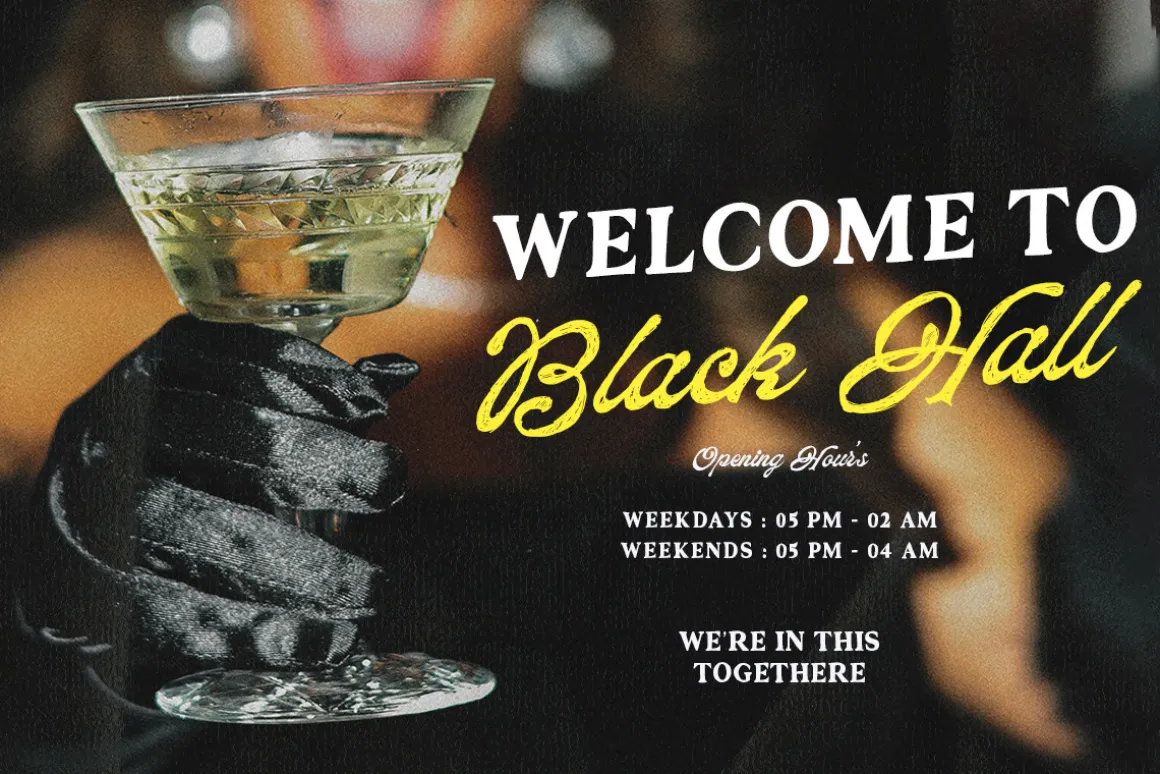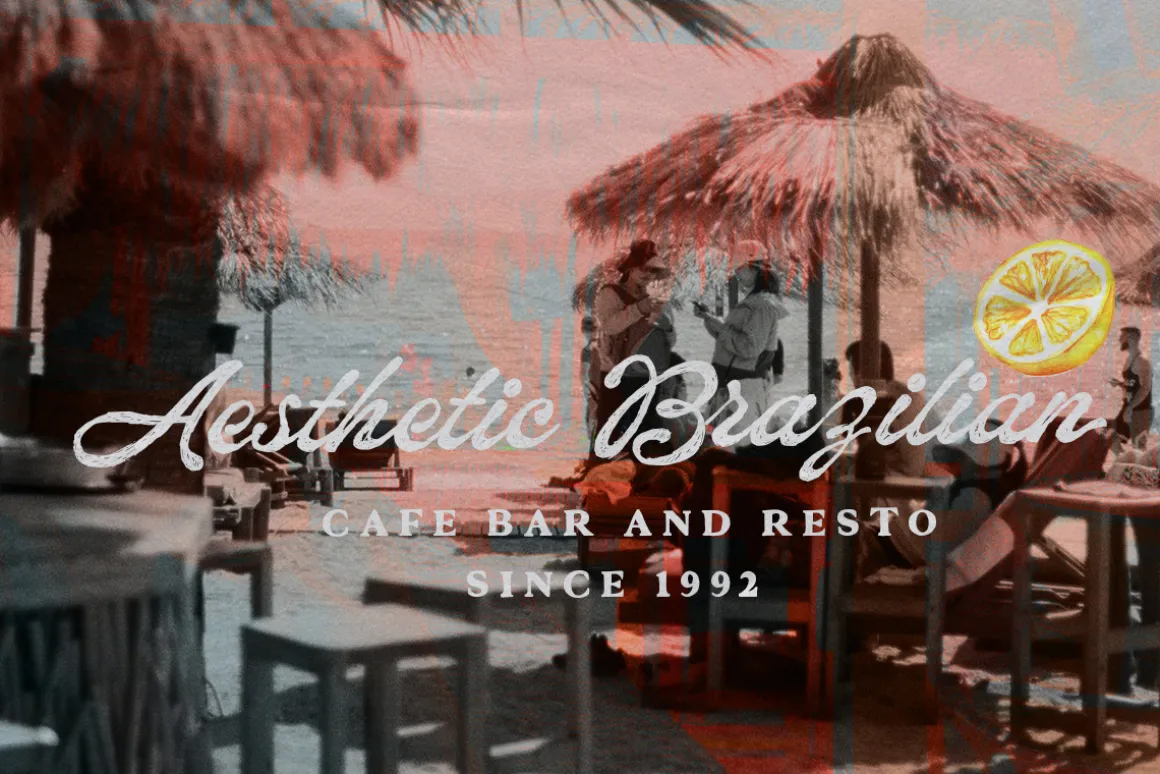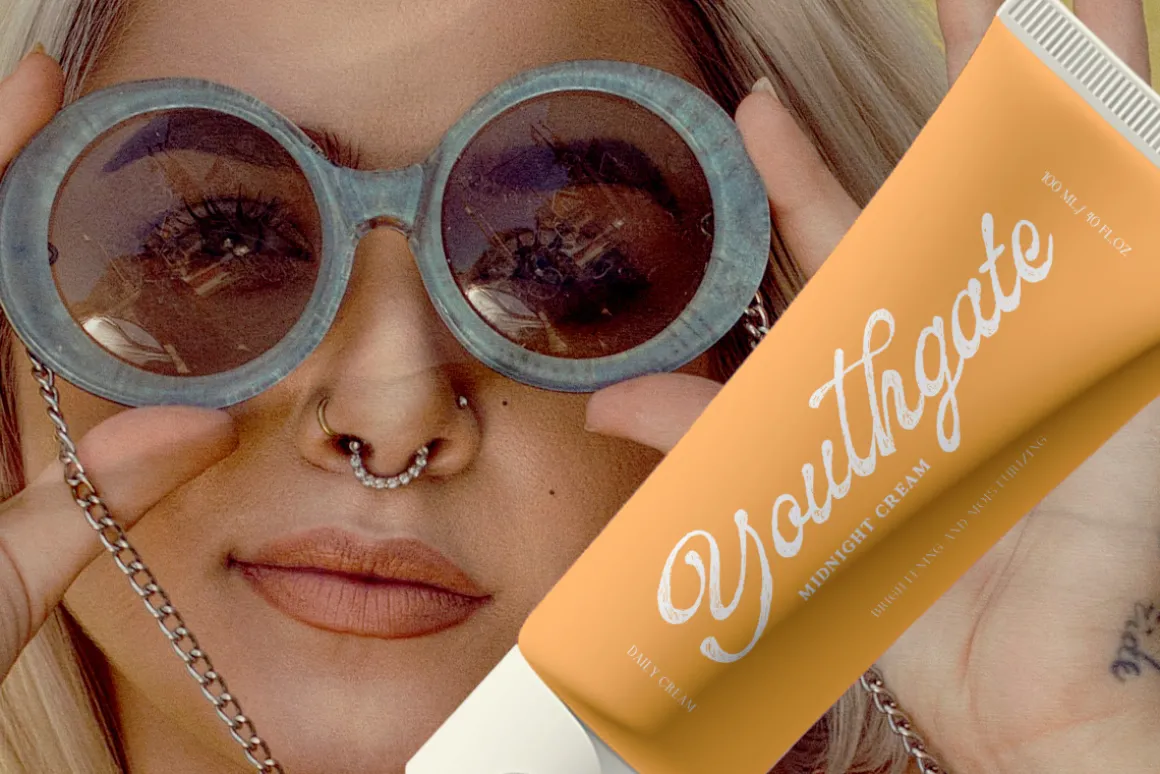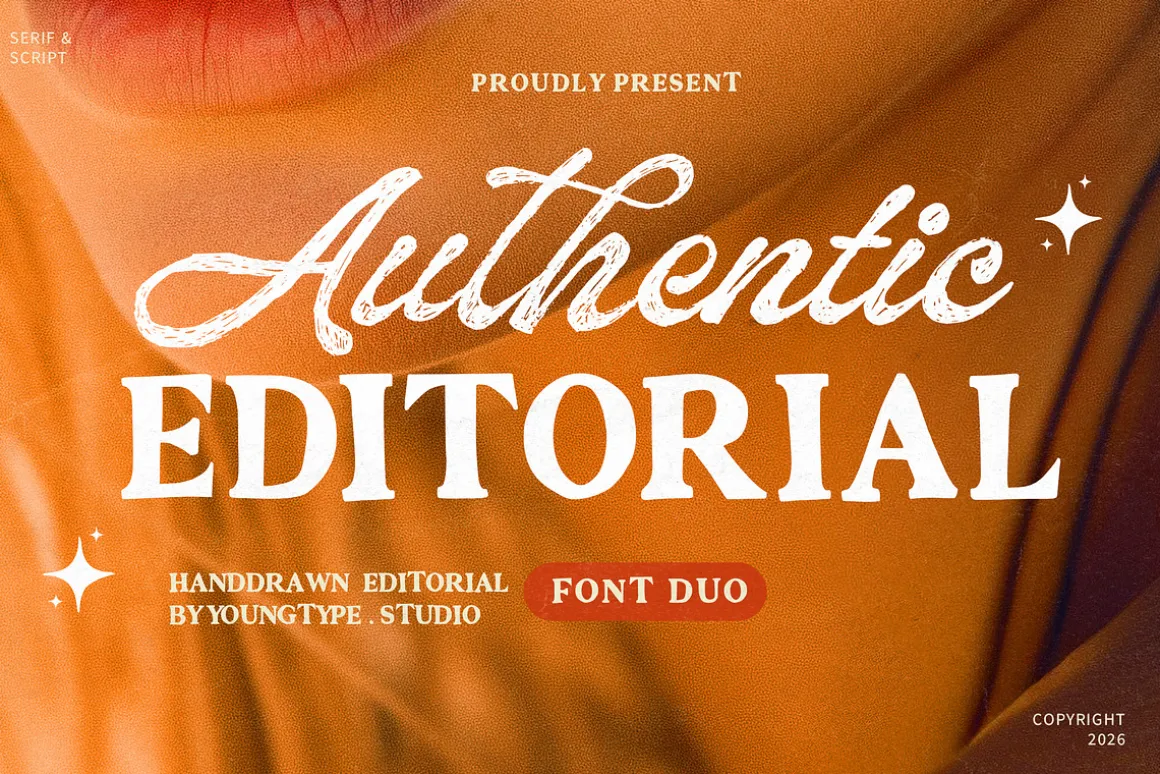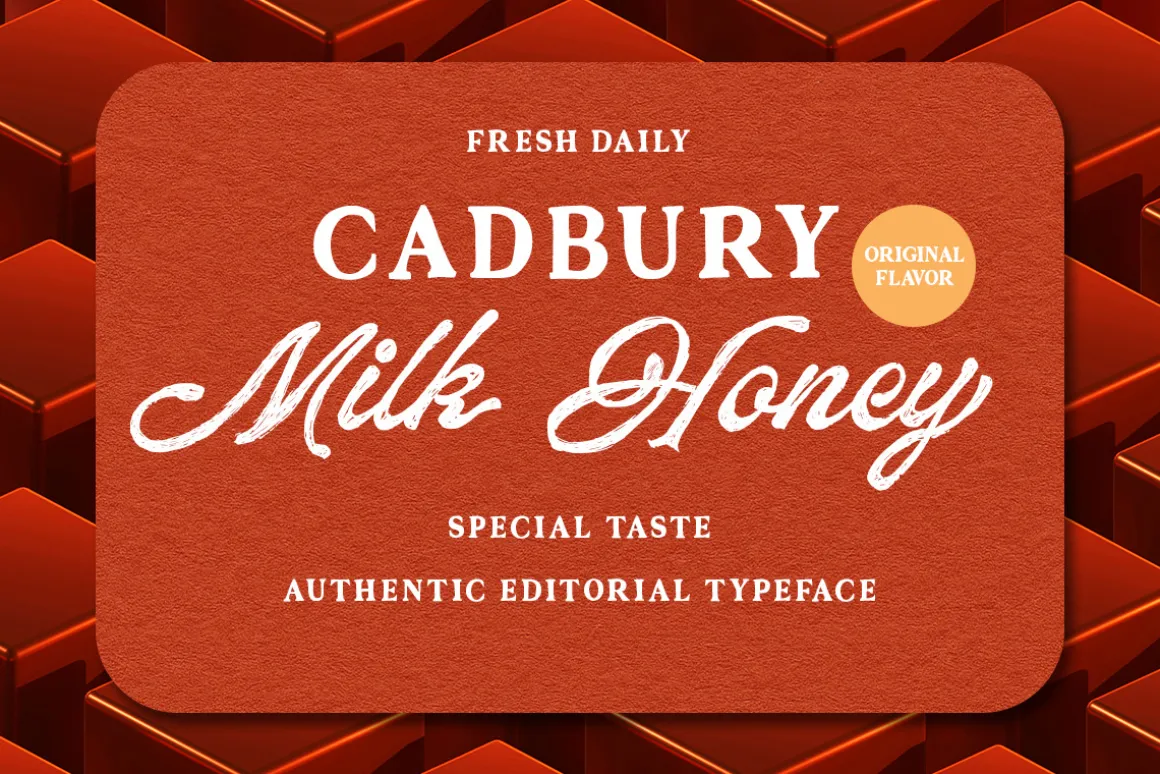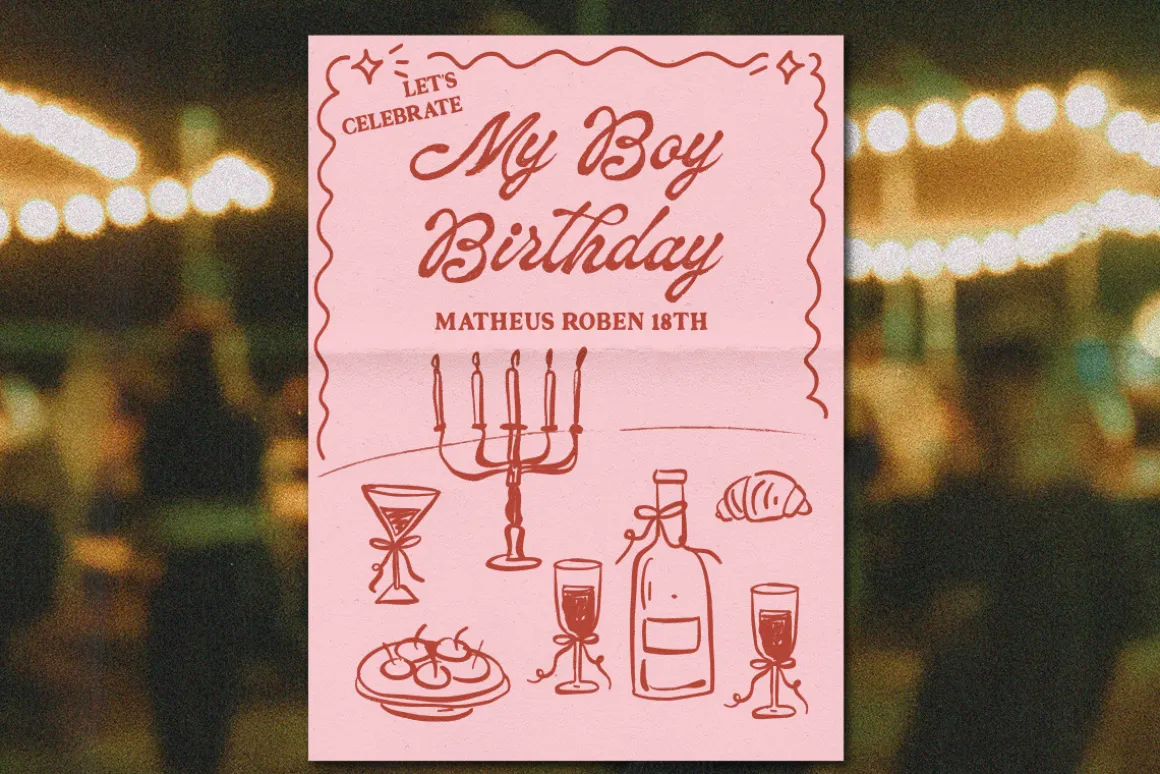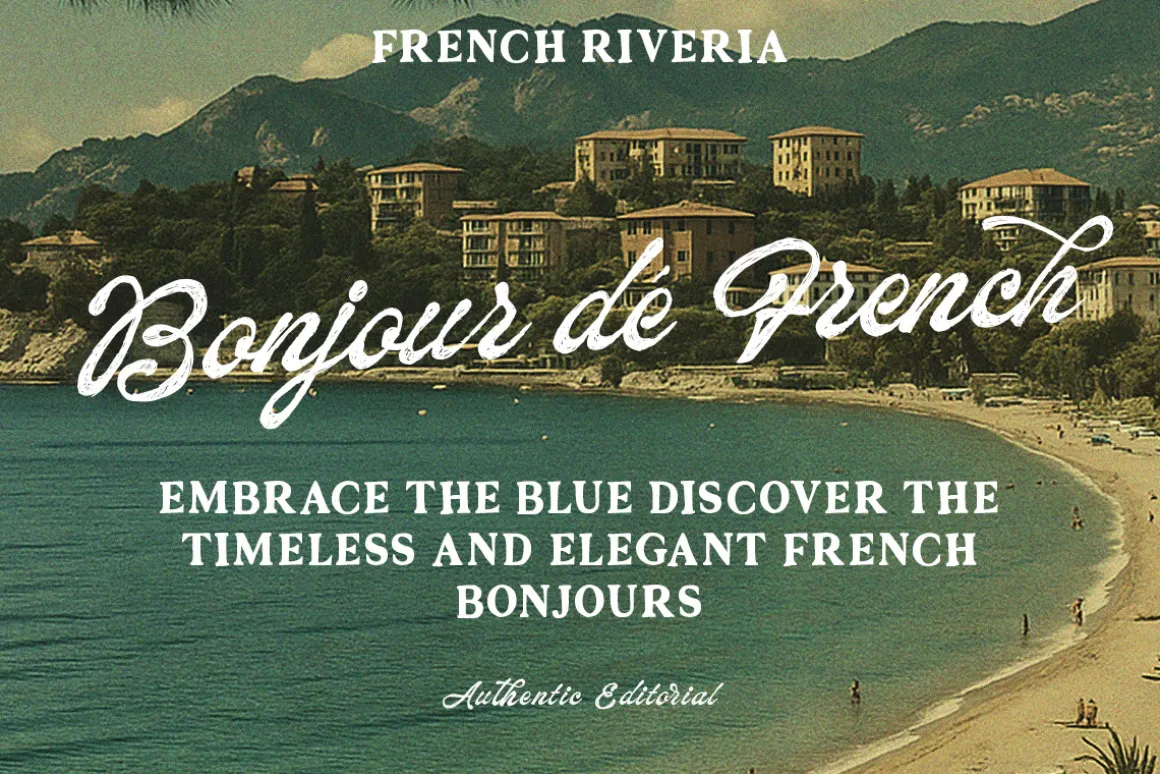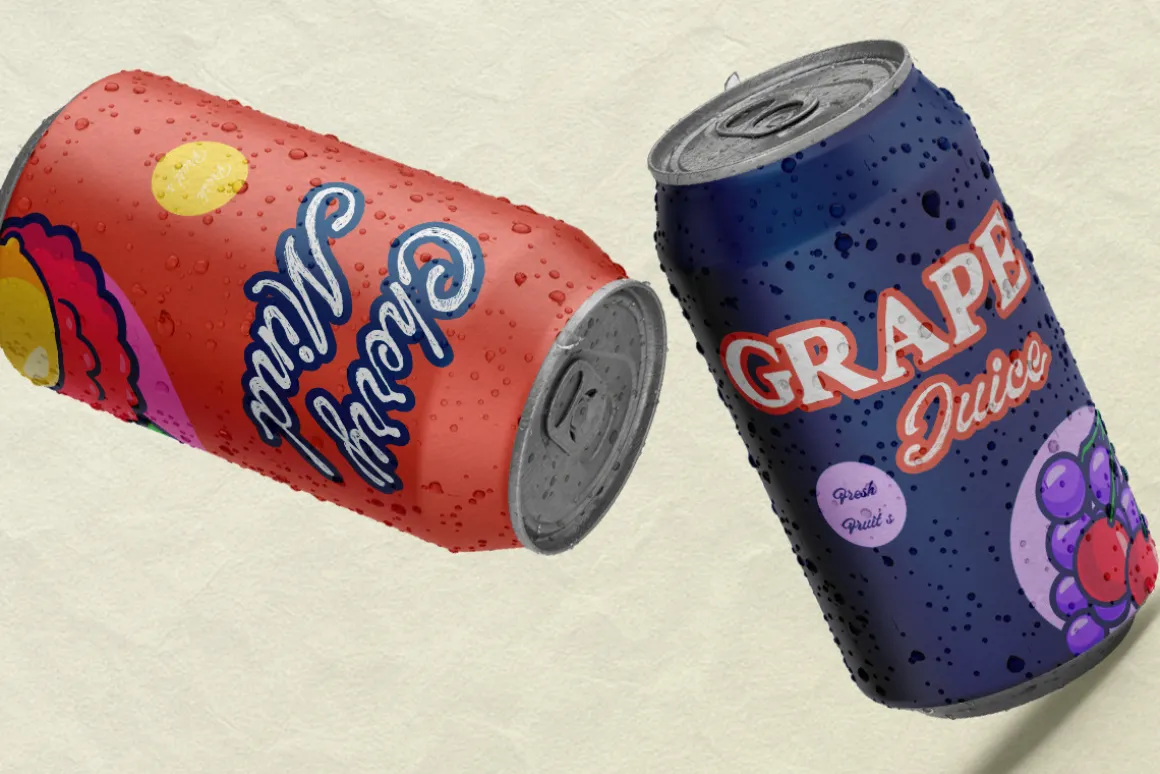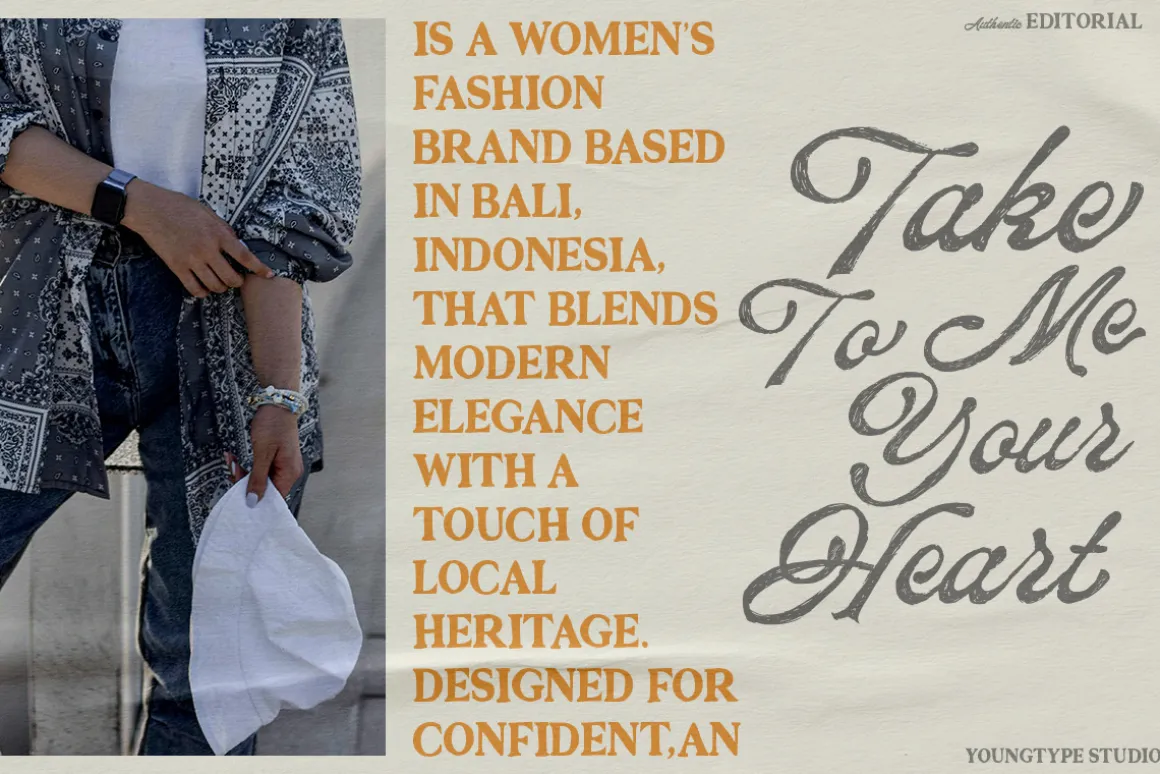
Authentic Editorial is a powerful font duo that blends handcrafted script elegance with bold editorial serif sophistication. The flowing handwritten script delivers a natural, artistic touch, while the strong serif characters create a timeless luxury feel. Designed with textured brush details and high-contrast letterforms, this font combination is perfect for fashion branding, magazine headlines, luxury packaging, wedding designs, social media, and premium logo projects.
With its expressive curves, vintage-inspired personality, and modern editorial style, Authentic Editorial brings confidence, elegance, and creative energy into every design. A perfect choice for designers who want to create bold, classy, and unforgettable visual identities.